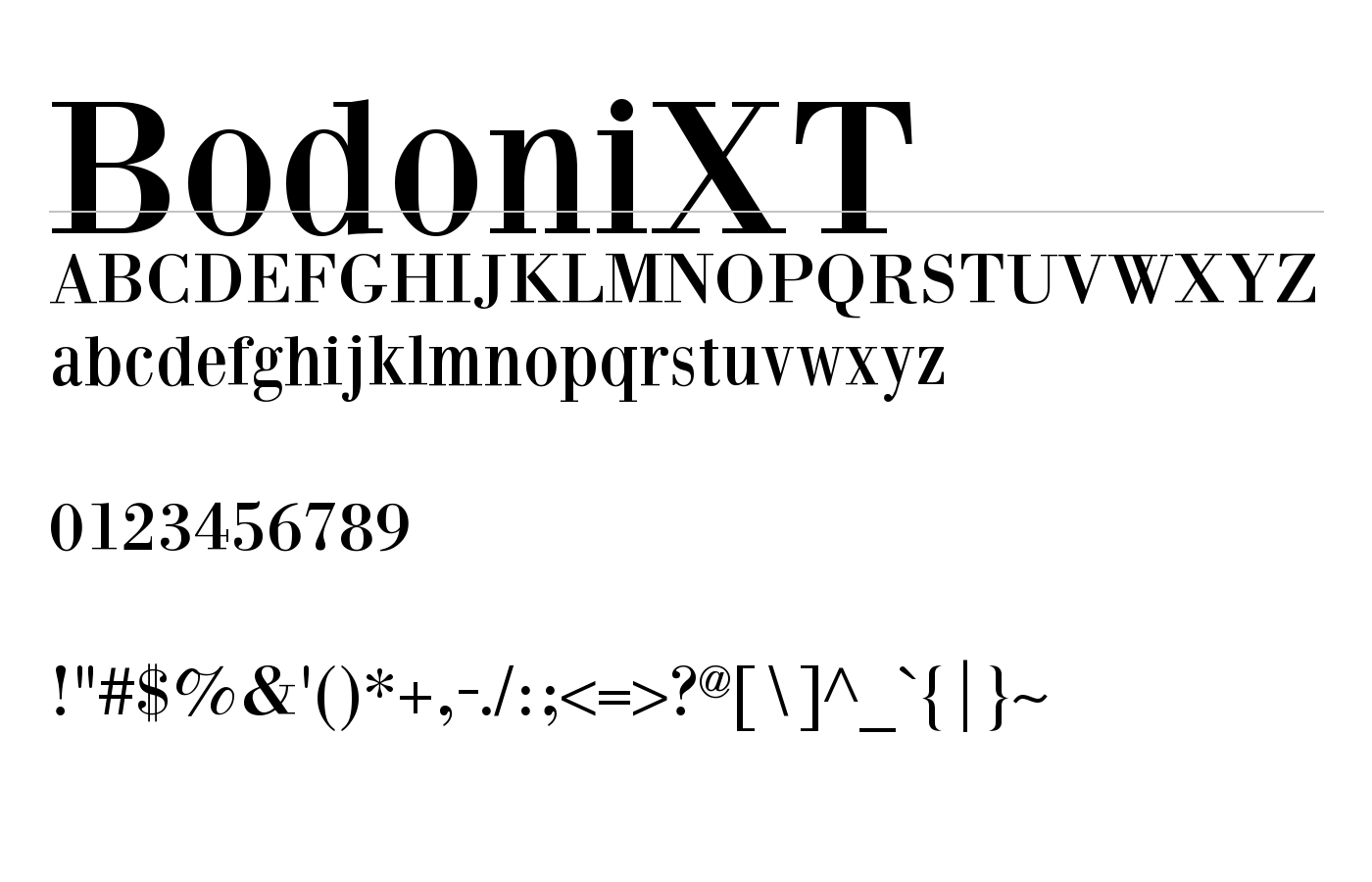
BodoniXT is a classic Didone serif font characterized by its high contrast between thick and thin strokes, sharp serifs, and elegant, vertical stress. It features a refined, sophisticated style with a moderate x-height and delicate bracketed serifs, making it ideal for luxury branding, editorial headlines, and formal invitations where a timeless and polished look is desired. Its crisp letterforms and elegant curves communicate a sense of tradition and high fashion, perfectly suited for upscale visual identities and editorial design.
BodoniXT Font
About BodoniXT Font